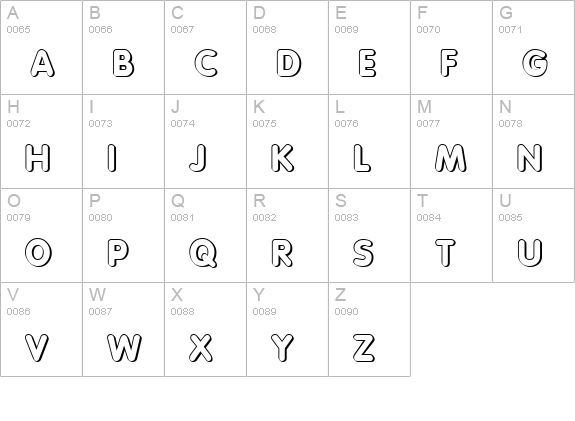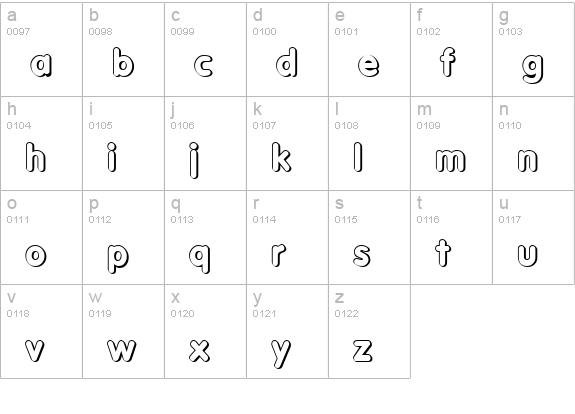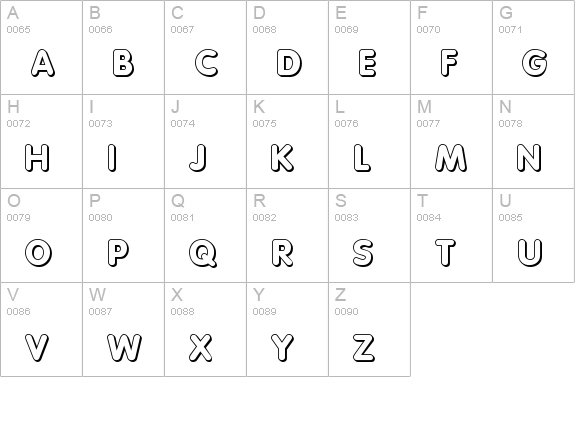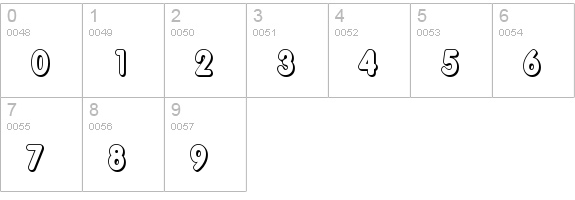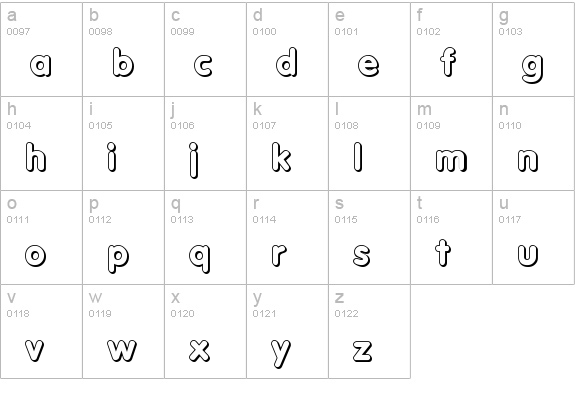
VagabondShadow Regular Font Details
VagabondShadow Regular is the standard, neutral variant in the VagabondShadow typeface family \xE2\x80\x94 well suited to general body text, paragraphs, and standard typographic work.
VagabondShadow Regular font is a captivating typeface that exudes an air of mystery and intrigue. With its unique blend of elegant curves and sharp edges, this font effortlessly captures attention and adds a touch of sophistication to any design project. The beauty of VagabondShadow Regular font lies not only in its aesthetic appeal but also in its versatility. Whether used for headlines, logos, or body text, this font adapts seamlessly to any context, creating a cohesive and visually striking composition. One of the greatest advantages of VagabondShadow Regular font is that it is freely available to download at FontsMarket.com. This means that designers, artists, and creatives of all kinds can access this remarkable font without any financial constraints, allowing them to bring their visions to life with ease. The clean lines and balanced proportions of VagabondShadow Regular font make it highly legible, ensuring that your message is conveyed with clarity and impact. Its timeless appeal makes it suitable for a wide range of applications, from print materials to digital designs. Whether you are working on a branding project, a magazine layout, or a website design, VagabondShadow Regular font will elevate your work to new heights. Its refined elegance and effortless style make it a valuable asset for any creative endeavor. Download VagabondShadow Regular font today from FontsMarket.com and explore the vast possibilities that this font has to offer. With its striking appearance and free availability, VagabondShadow Regular font is a must-have for designers seeking to make a lasting impression.